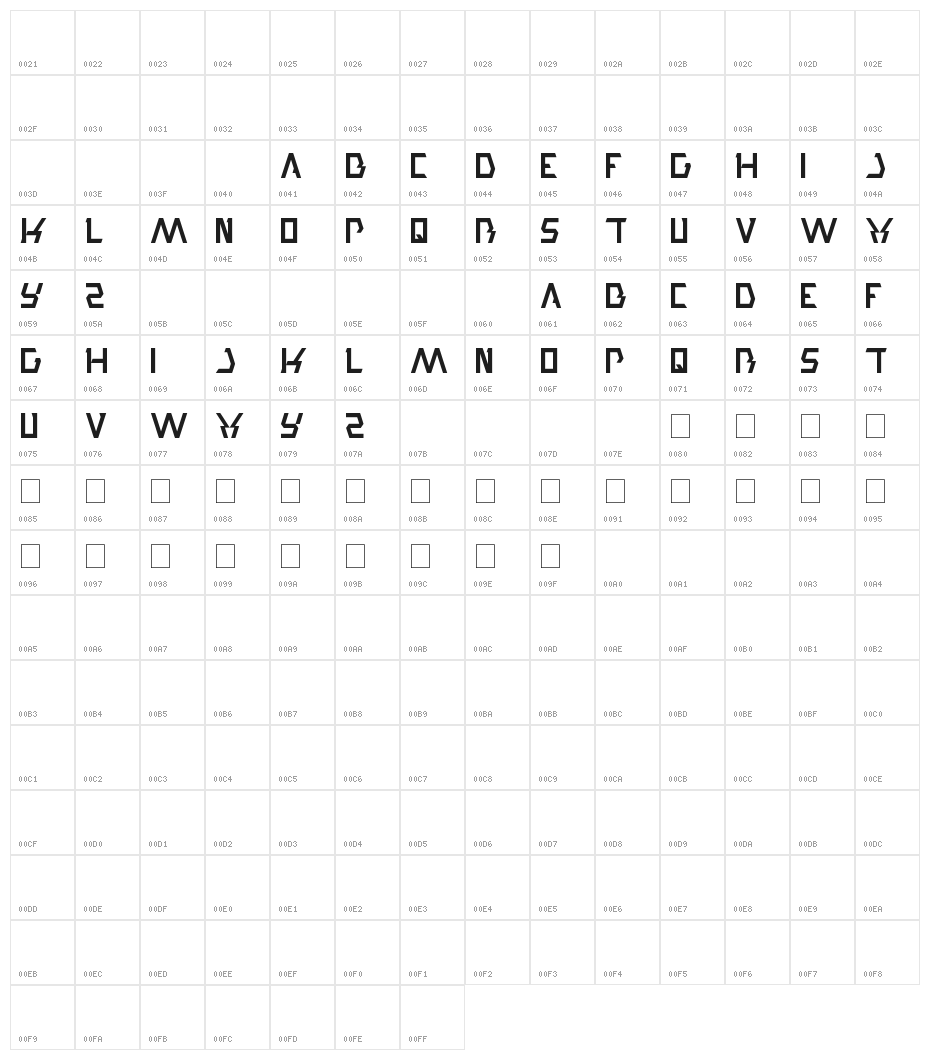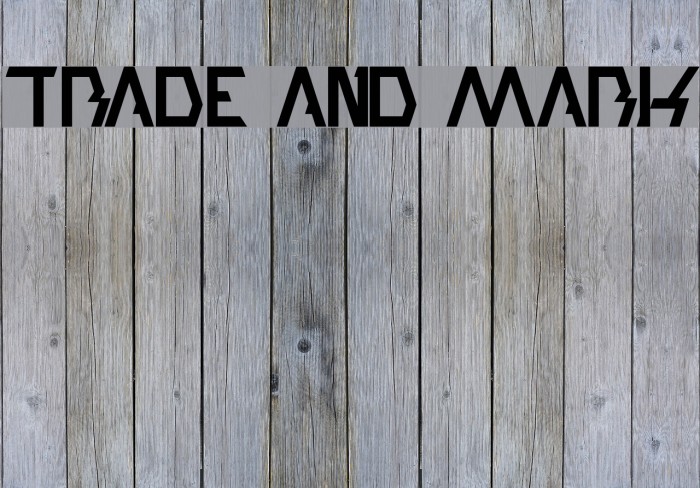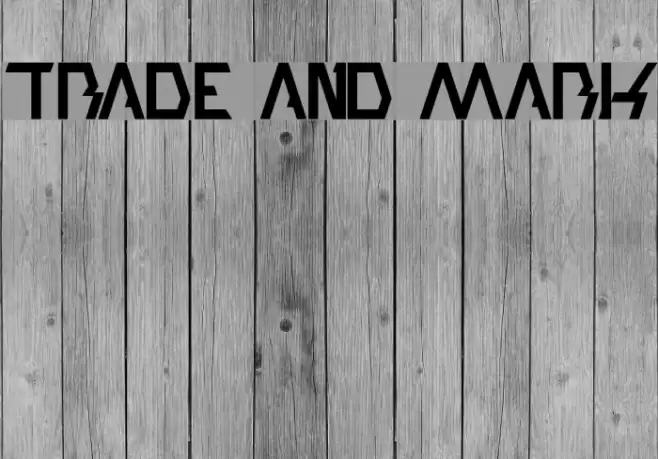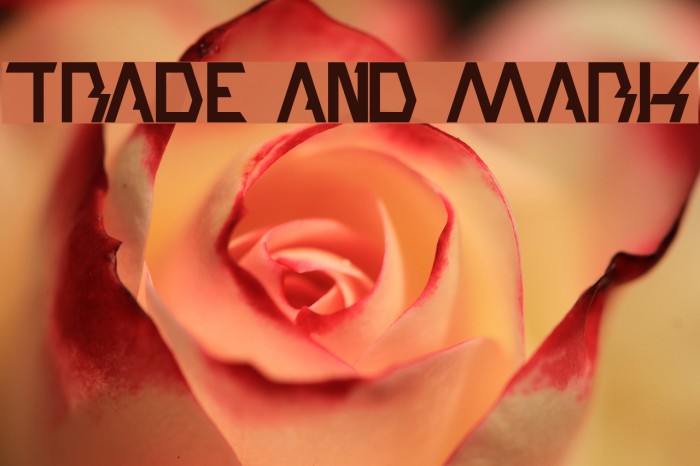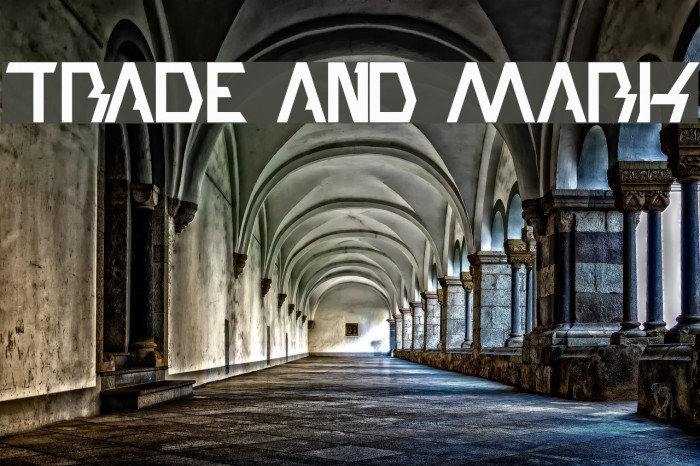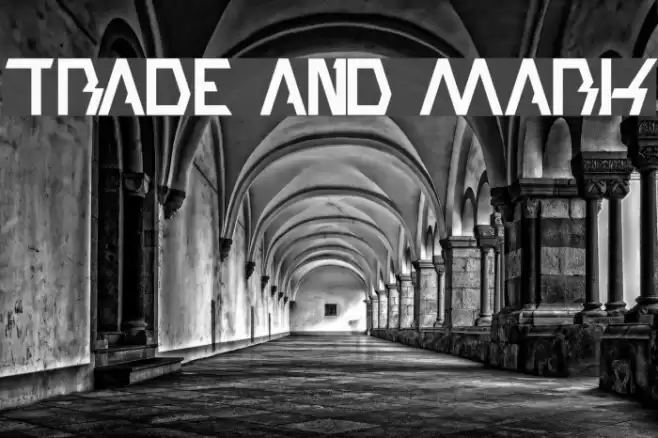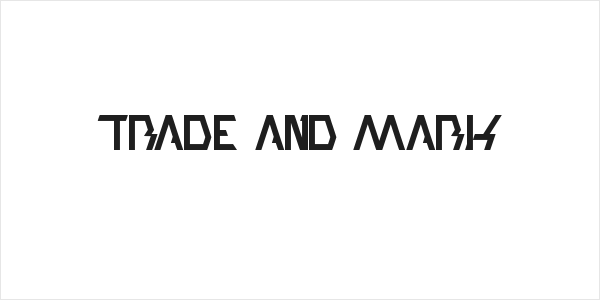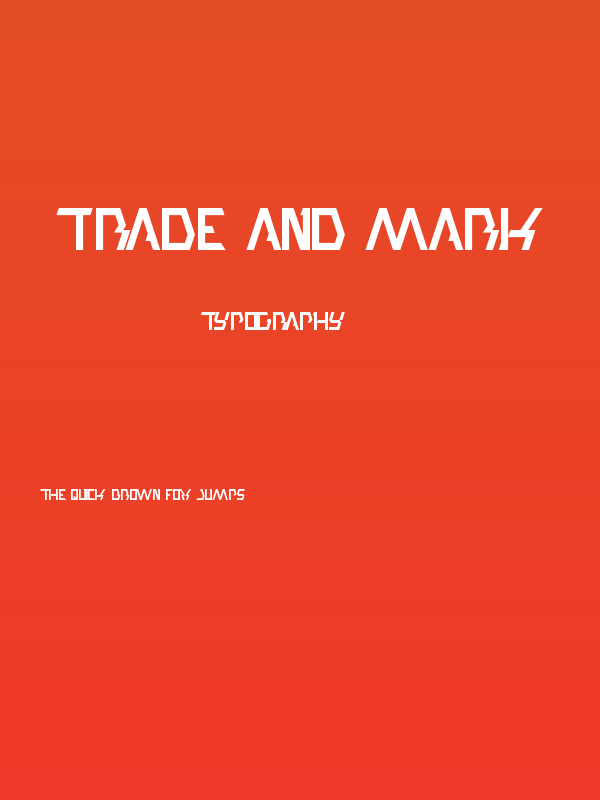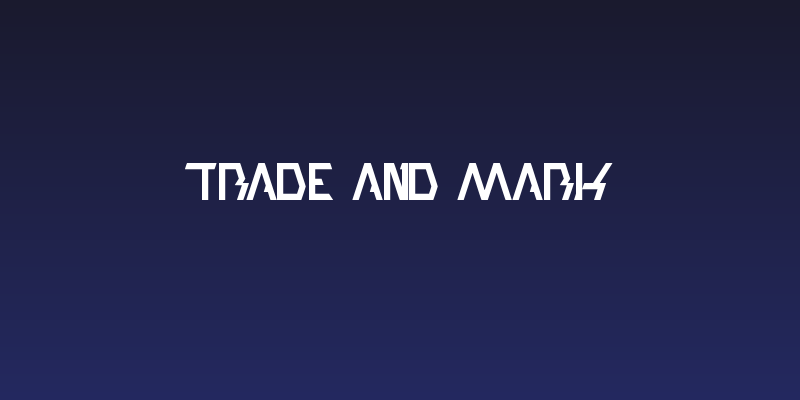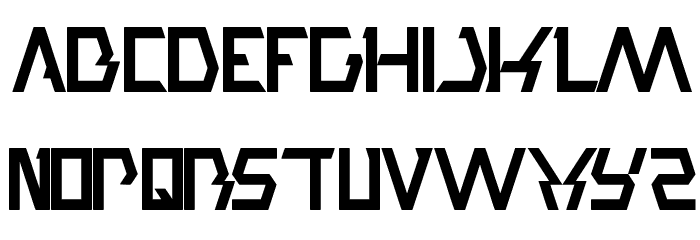
trade and mark Font
trade and mark Description
This font features a bold, geometric design with sharp angles and a futuristic aesthetic. The characters are constructed with a combination of straight lines and angular cuts, giving it a distinct, edgy appearance. The uppercase letters are particularly striking, with unique shapes that make each character stand out. The font maintains a consistent weight throughout, contributing to its bold presence. The spacing between characters is tight, enhancing its compact and cohesive look. This style is reminiscent of modern digital or sci-fi themes, making it ideal for projects that require a strong, contemporary visual impact.
| Proposed Projects | Ideal for sci-fi themed designs, video game titles, tech branding, and modern posters. |